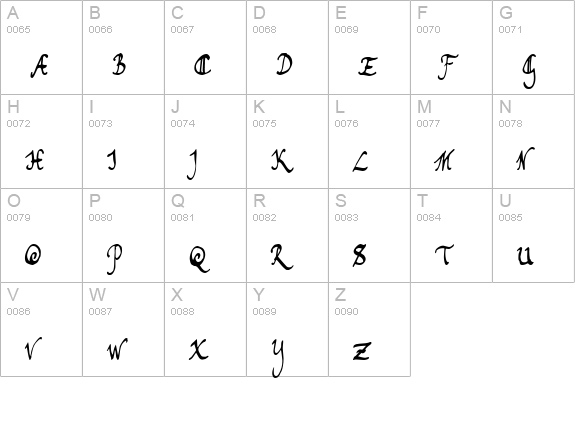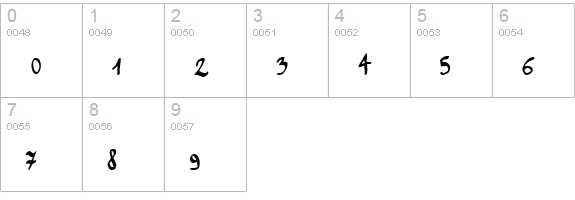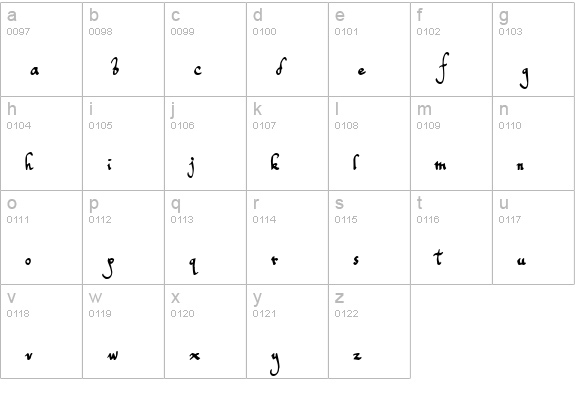
Toms Handwriting font is a charming and delightful typeface that captures the essence of handwritten notes. With its unique and playful letterforms, this font adds a personal touch to any project. Whether you're designing invitations, greeting cards, or creating a logo, Toms Handwriting will bring a sense of warmth and authenticity. What makes Toms Handwriting font even more appealing is that it is free! Yes, you read that right. This beautiful font is freely available to download at FontsMarket.com. Now, you can enjoy the beauty of Toms Handwriting without any cost. It's a fantastic opportunity to enhance your designs without breaking the bank. The versatility of Toms Handwriting font is another reason to love it. It works well in both print and digital media, making it suitable for a wide range of projects. From wedding stationery to social media graphics, Toms Handwriting font adds a touch of elegance and uniqueness. The attention to detail in Toms Handwriting font is truly remarkable. Each letter has been carefully crafted to resemble authentic handwriting, giving your text a personal and organic feel. The flowing strokes and subtle imperfections make it feel as if it was written just for you. Don't miss out on the chance to elevate your designs with Toms Handwriting font. Download it for free at FontsMarket.com and let your creativity soar. Whether you're a professional designer or a hobbyist, this font will bring your projects to life with its charm and character.